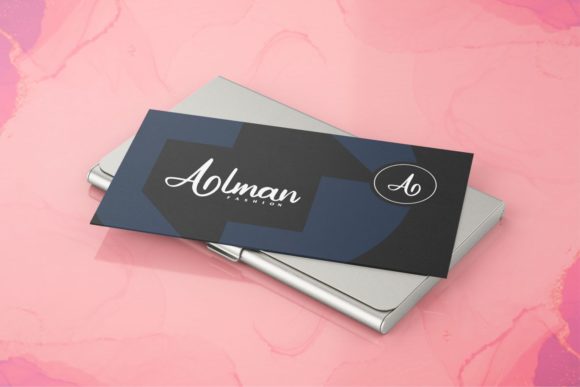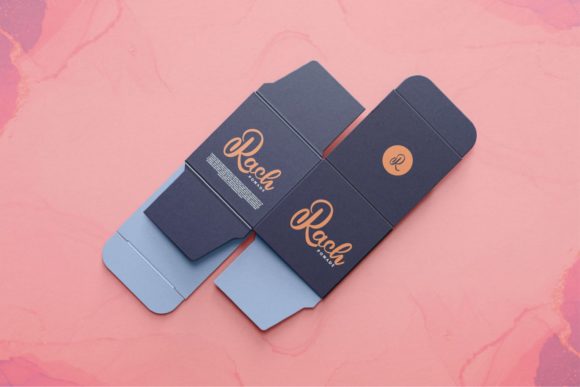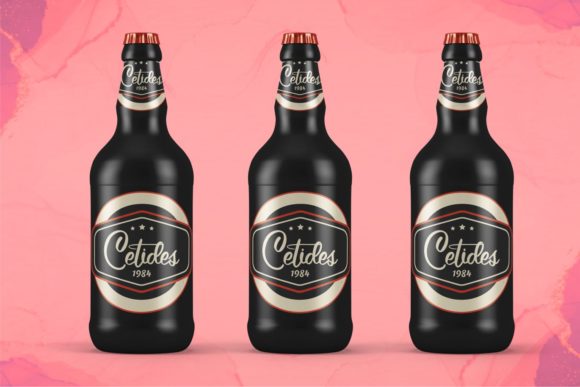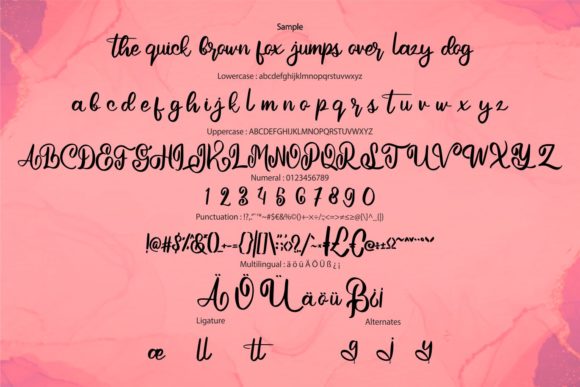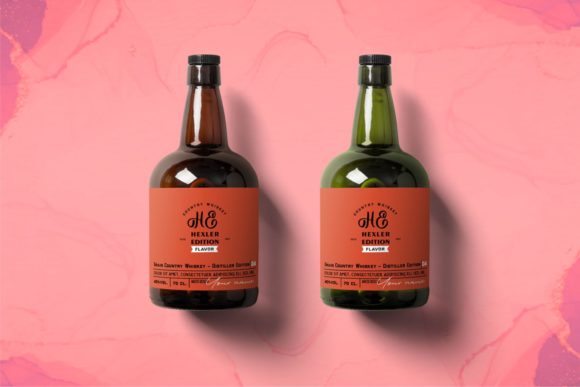
Carmila Font
About Carmila Font
Carmila is a sweet brushed handwritten font. It has beautiful and well balanced characters and as a result, it matches a wide pool of designs. This font features a varying baseline, smooth lines, gorgeous glyphs and stunning alternates. Add Carmila to your most creative ideas and notice how it makes them come alive!